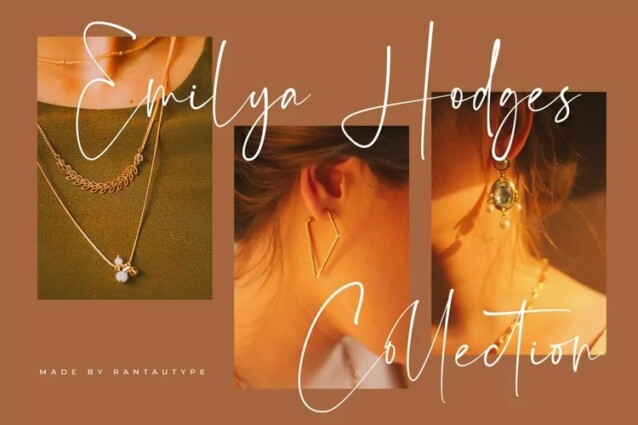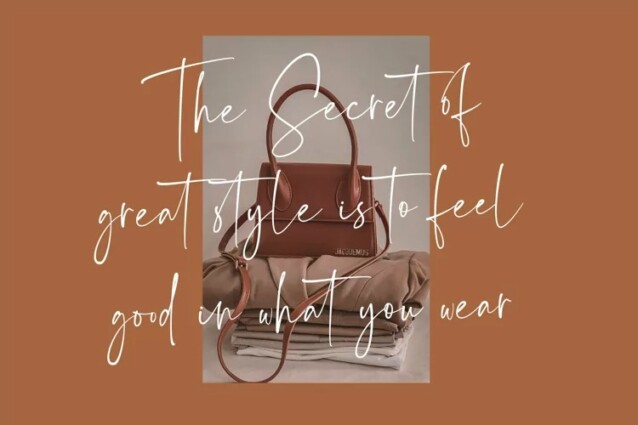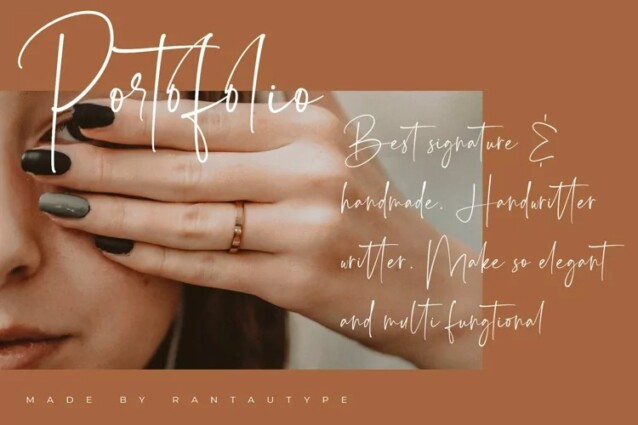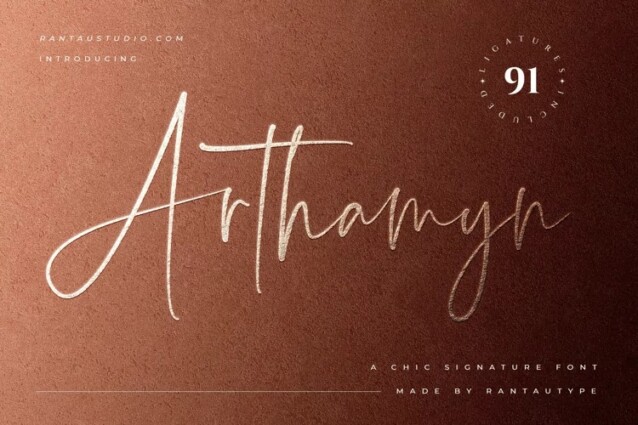
Arthamyn Font
Arthamyn Font is a delicate and elegant script font with a modern and sophisticated appearance. Made from font designer named Rantautype. Arthamyn is the great choice for watermark on photography, signature or signature logo design, quotes, album cover, magazine, business card and many other design project. Arthamyn here to make your work to high level!!!